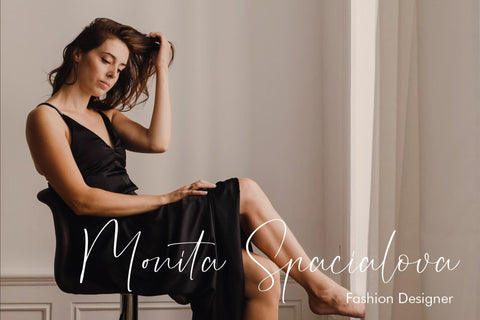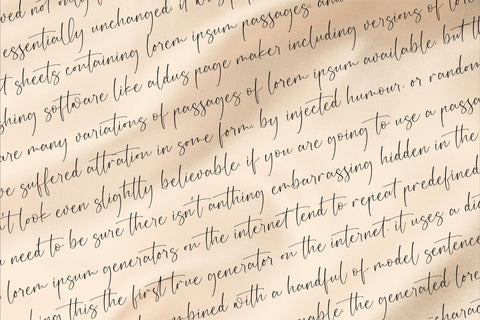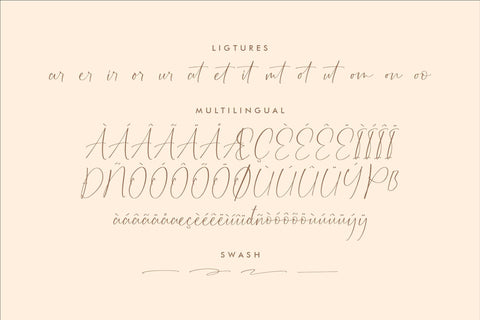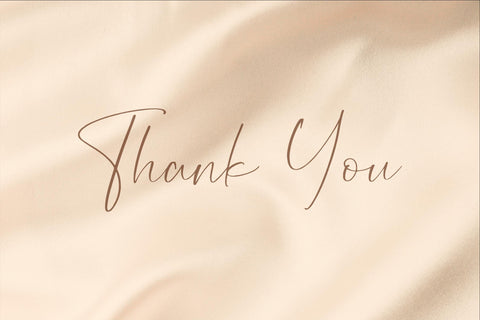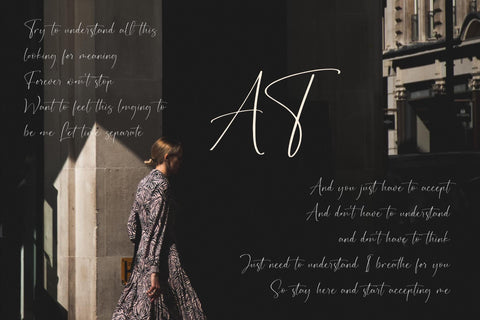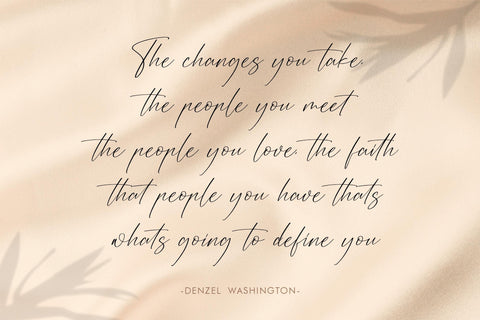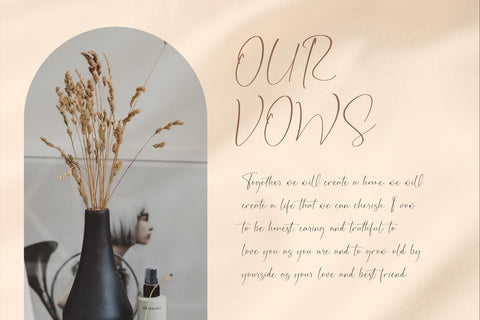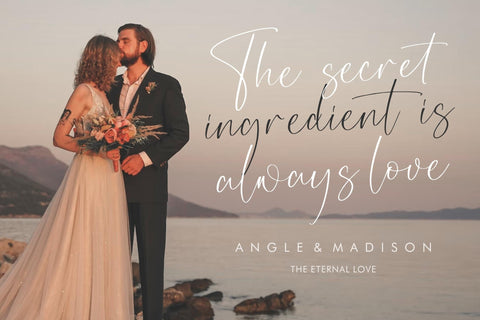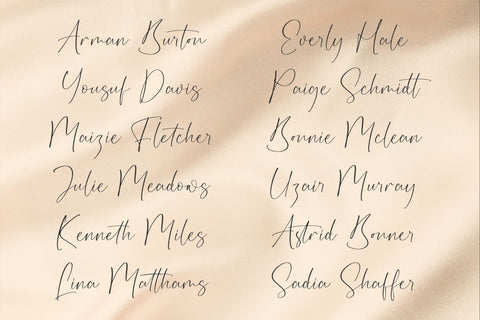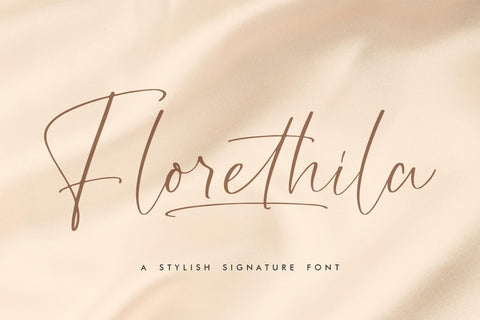
Florethila - Stylish Signature Font
Proudly present Florethila - Stylish Signature Font , created by Storytype,
A luxury script that has own unique style & modern look.